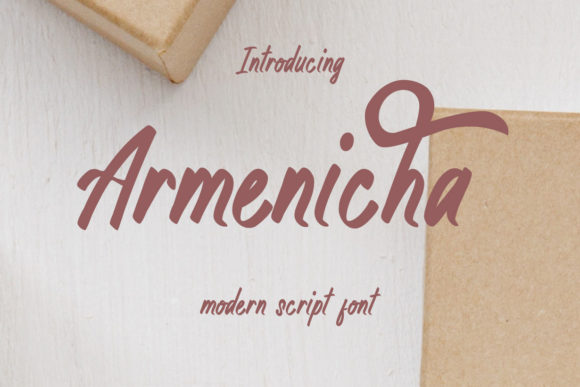
The Quest for the Perfect Font: Discovering Armenicha
Ah, the eternal search for that one perfect font. You know, the one that makes your design project go from meh to mesmerizing. I’ve been there, done that, and got the t-shirt (which, by the way, was probably designed with a font that didn’t quite live up to my expectations). But today, I’m excited to share with you a game-changer: Armenicha, an exquisite handwritten font that’s about to become your new best friend.
First Impressions: Falling in Love with Armenicha
Armenicha is a masterclass in elegant handwriting. It’s got the classy calligraphic vibes that scream sophistication, yet it feels contemporary and fresh. It’s like that perfect little black dress – it never goes out of style, and you can dress it up or down. When I first laid eyes on Armenicha, I knew I had to share it with the world.
Honest Review: The Good, the Bad, and the Quirky
- ✨ Exquisite handwriting that feels both elegant and modern
- 🌈 Beautifully crafted to work well in a variety of design contexts
- 💻 Great for both digital and print projects
- 🤔 Some users might find the font a tad too ornate for very casual projects
The Story Behind Armenicha: Designer Inspiration
Armenicha was crafted with love by a talented font designer who sought to create a font that would capture the essence of elegant handwriting. Inspired by traditional calligraphy and modern digital design, Armenicha was born – a font that’s both timeless and trendy.
Q: What type of projects is Armenicha best suited for?
A: Armenicha is versatile and can be used for a wide range of projects, from branding and packaging to digital and print media.
Q: Is Armenicha suitable for body text?
A: While Armenicha is highly legible, it’s primarily designed for headlines and short paragraphs. For longer body text, you may want to consider a more traditional serif or sans-serif font.